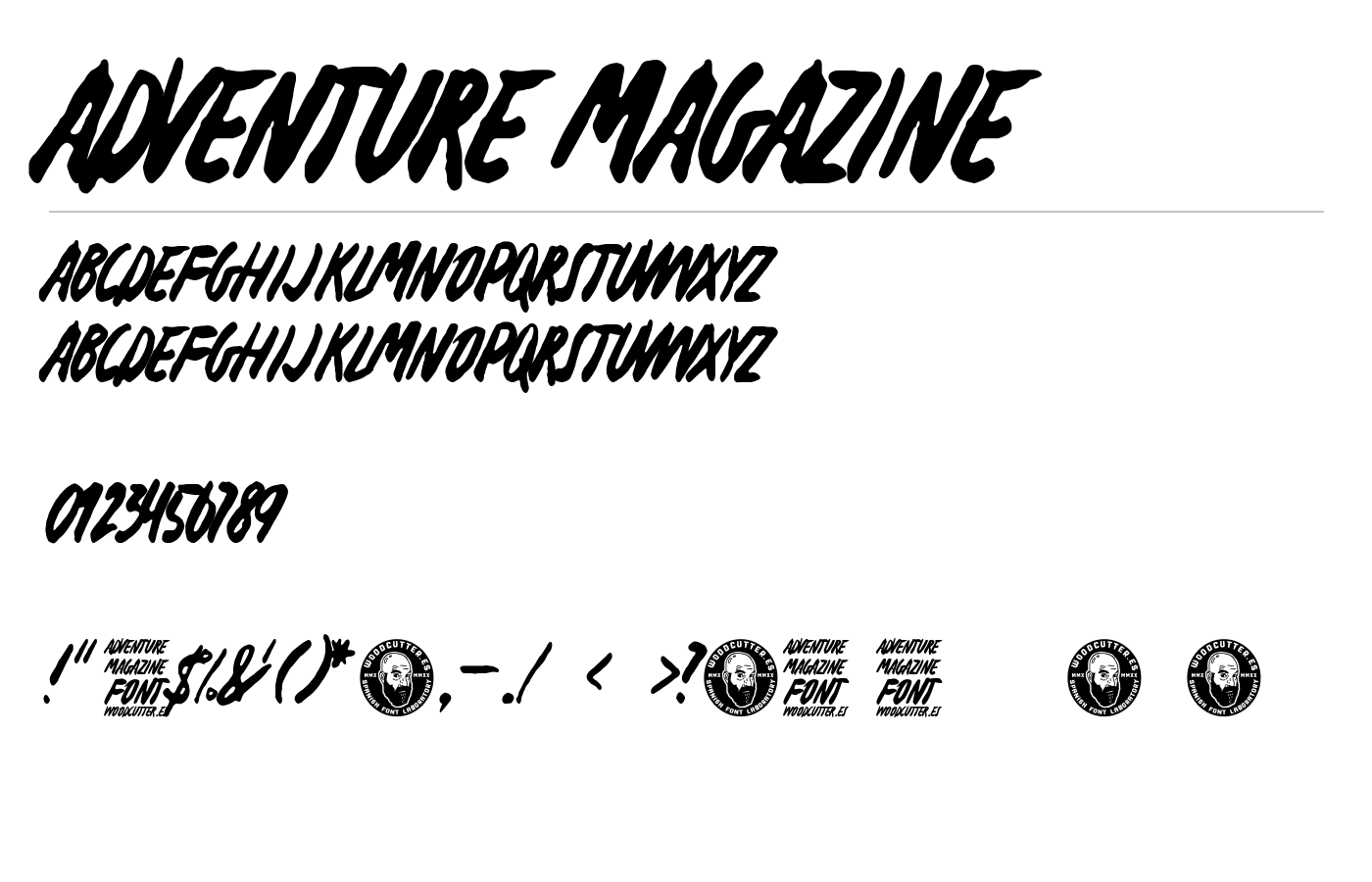
Adventure Magazine is a bold, hand-drawn script font with a lively, dynamic feel. Its thick, irregular strokes and slanted, all-uppercase letterforms evoke energy and a sense of spontaneity, making it perfect for eye-catching headlines, posters, and adventurous branding projects that want to communicate excitement and personality. This font works best in creative, informal contexts where a strong, expressive impact is needed.
Adventure Magazine Font
About Adventure Magazine Font